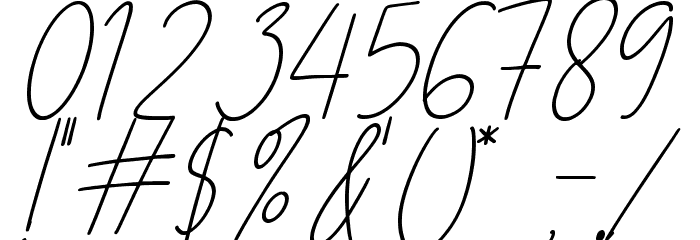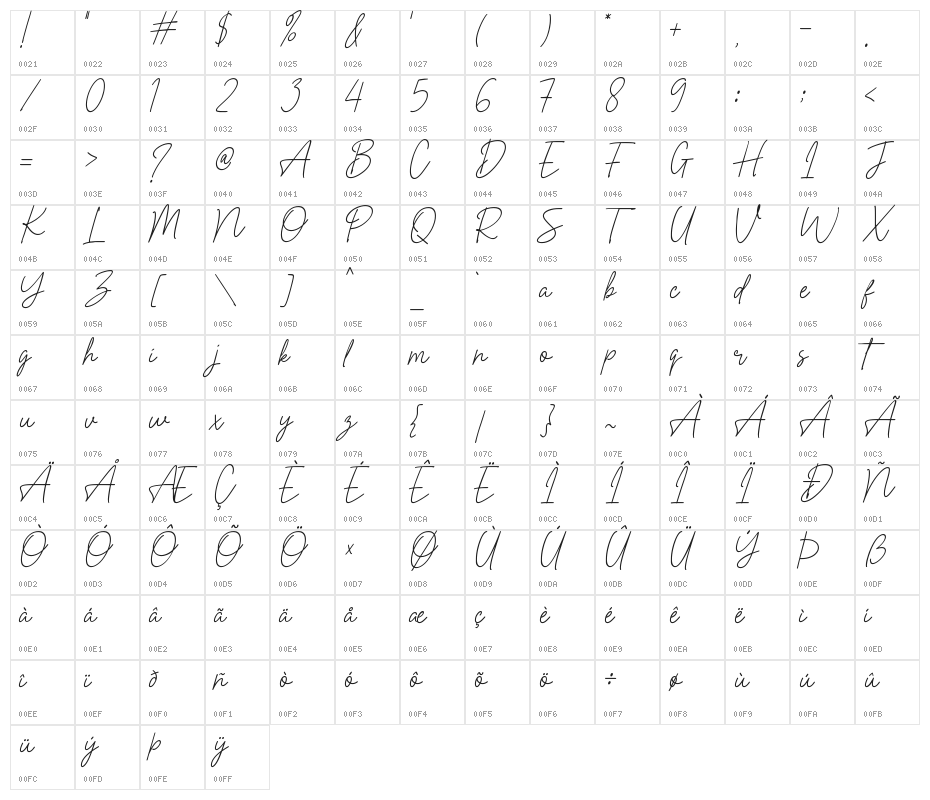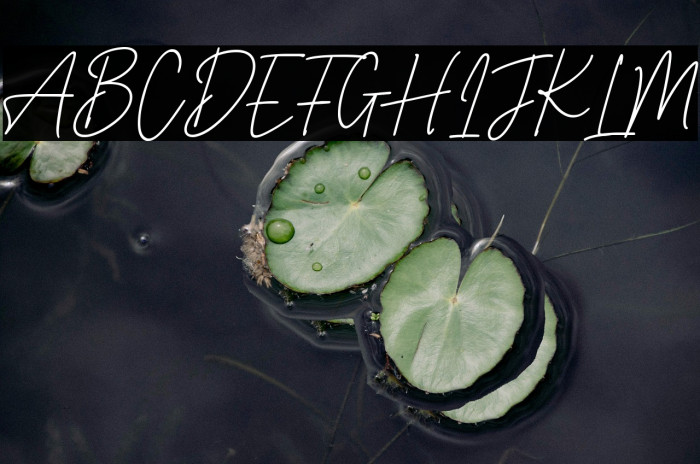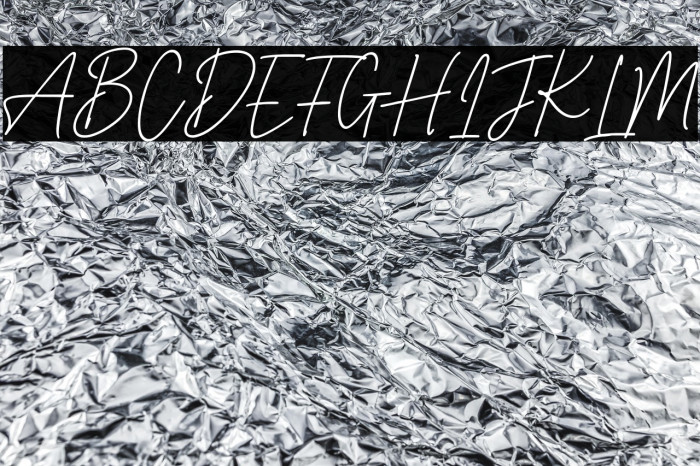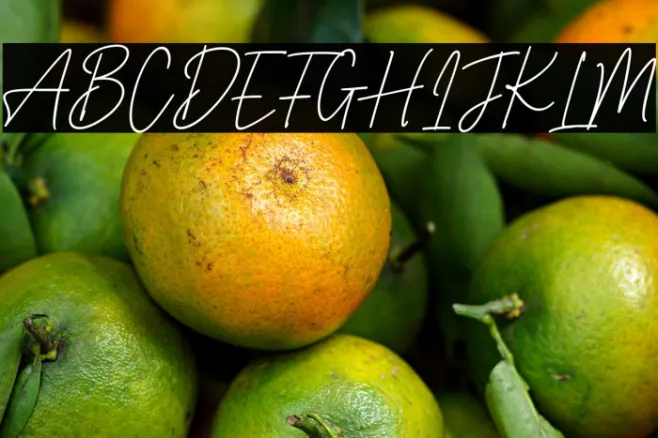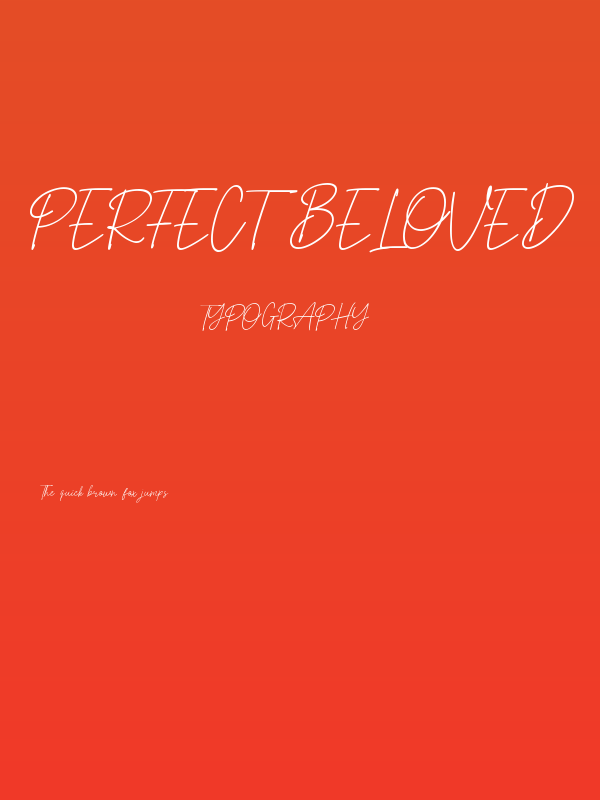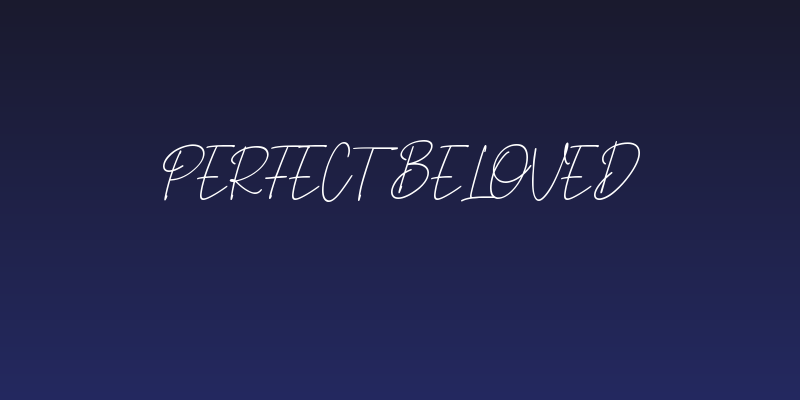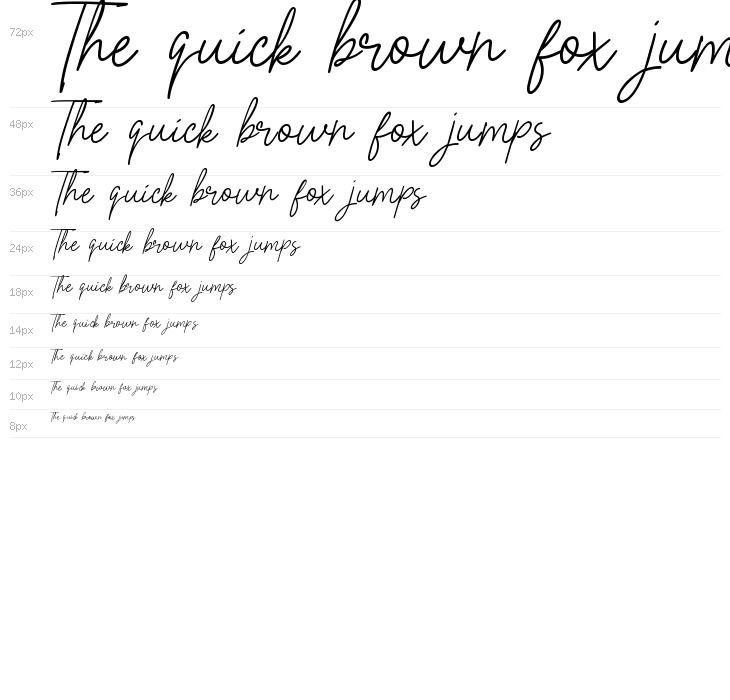
Perfect Beloved Font
Perfect Beloved Description
This font exudes elegance and fluidity, characterized by its cursive script style. The letters are connected with smooth, flowing strokes, giving it a handwritten appearance. The uppercase letters are tall and slender, while the lowercase letters maintain a consistent flow, enhancing readability. The numerals and special characters are designed to match the overall aesthetic, with a graceful and cohesive look. This font is perfect for adding a personal touch to any project, offering a sense of sophistication and charm.